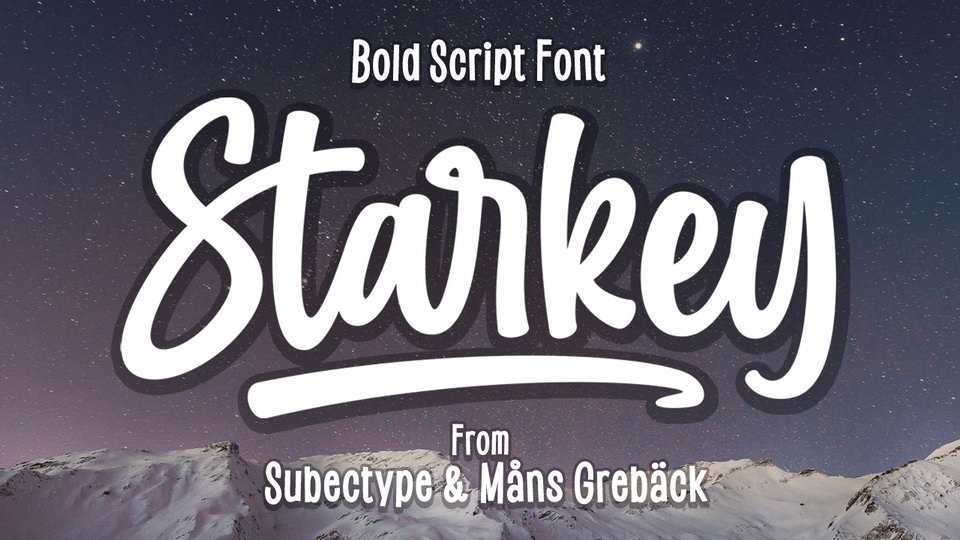
Download Starkey font, a bold, handwritten script typeface. Starkey is modern, quirky and clean, with a natural brush style that can be used for all your projects and needs.